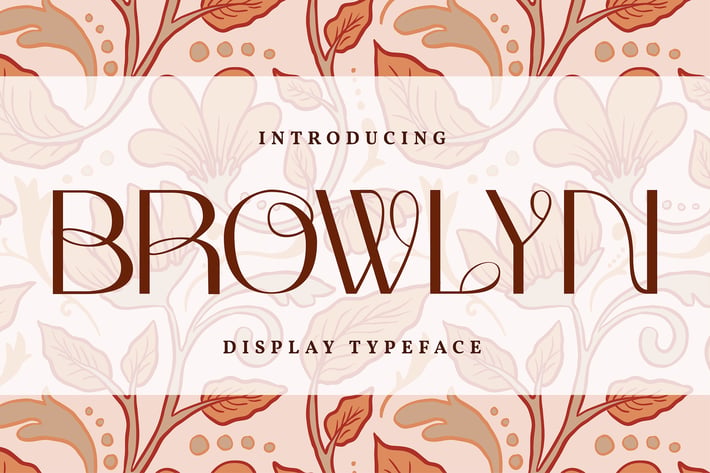
Browlyn | Display Typeface Font
Browlyn | Display Typeface Font with a calligraphy style, So beautiful on invitation like greeting cards, branding materials, business cards, quotes, posters, and more!